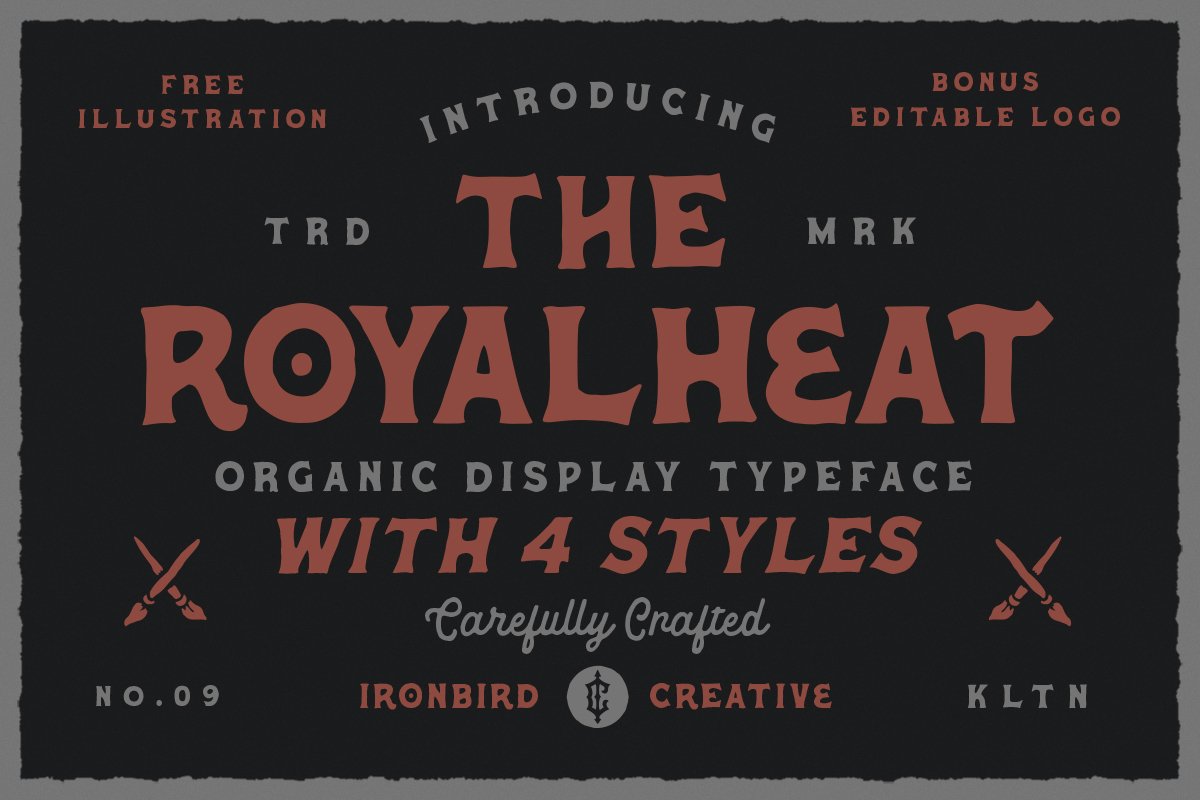
The Royalheat & Extras
The Royalheat
The Royalheat Slanted
The Royalheat Stamp Slanted
The Royalheat Stamp
The Royalheat is a organic display typeface inspired by vintage type with handdrawn feel. Comes with regular, stamp, slanted and slanted stamp styles. Also come with FREE illustrations and editable logo to make better design. This typefaces is perfect for people looking for vintage aesthetic. Suitable for any graphic designs such as branding materials, t-shirt, print, logo, poster, t-shirt, quotes .etc